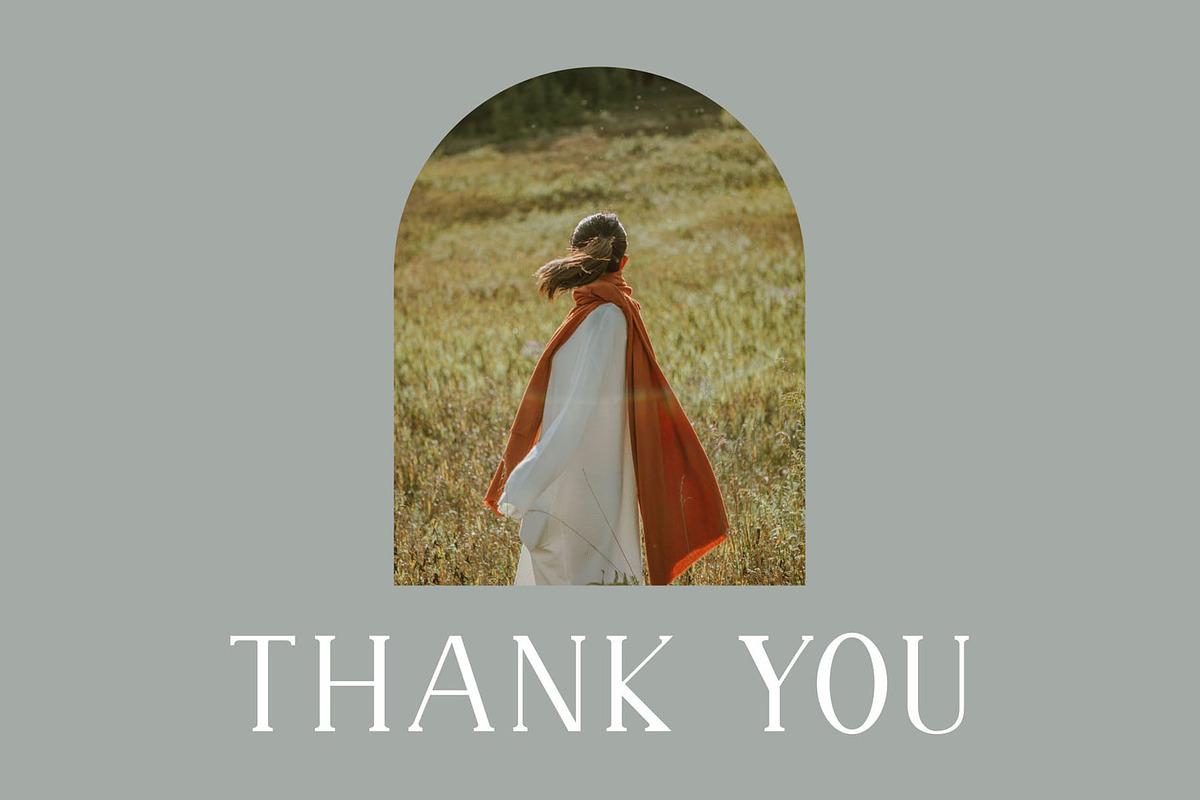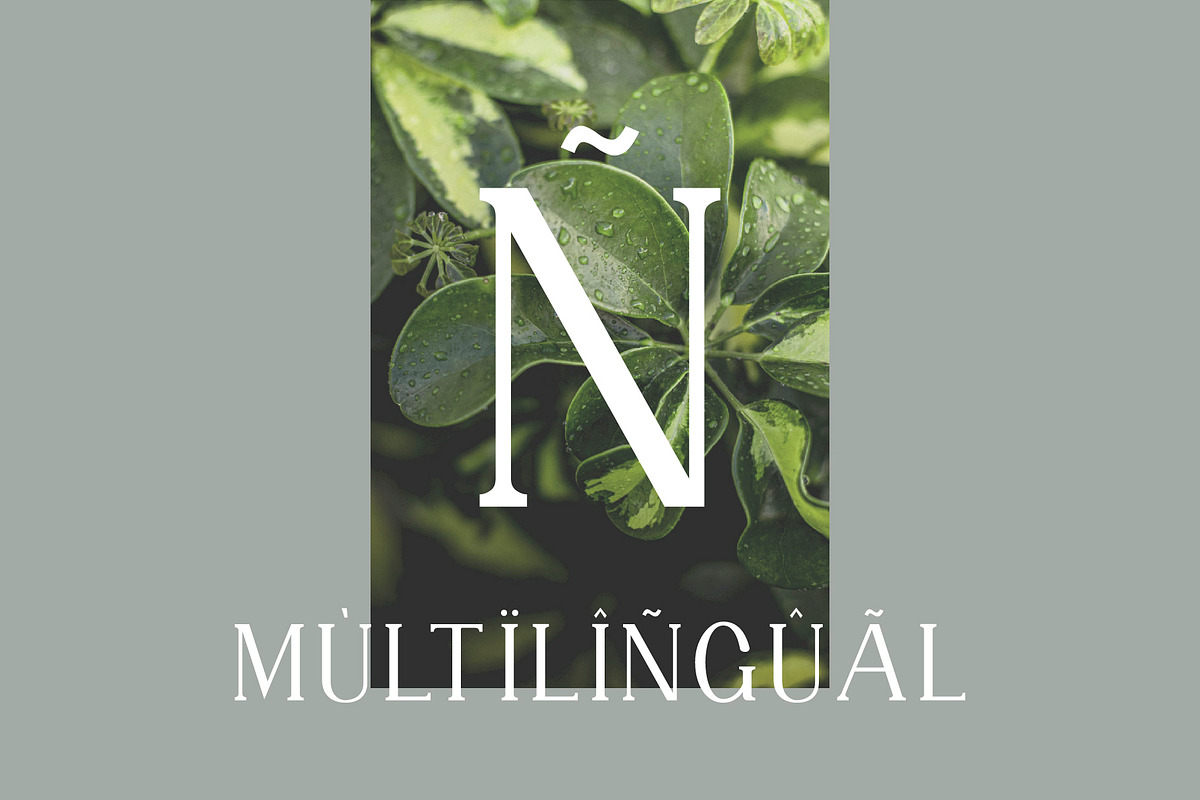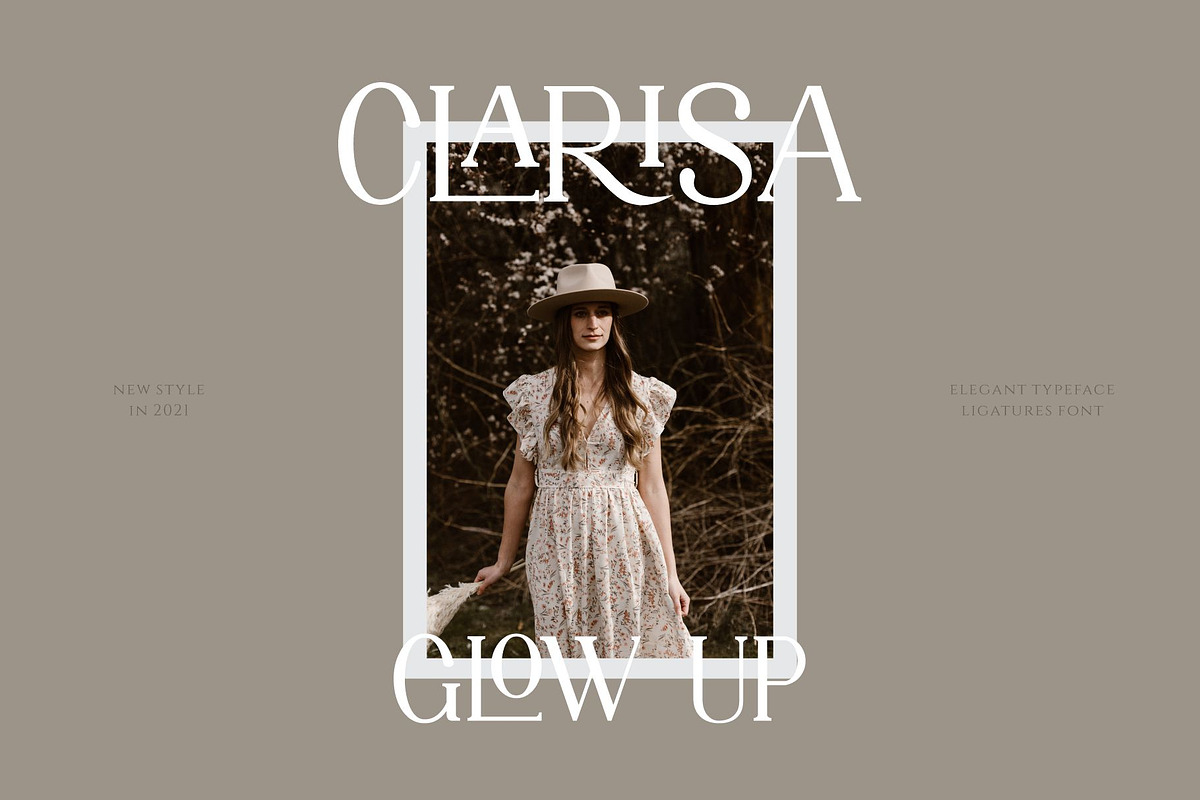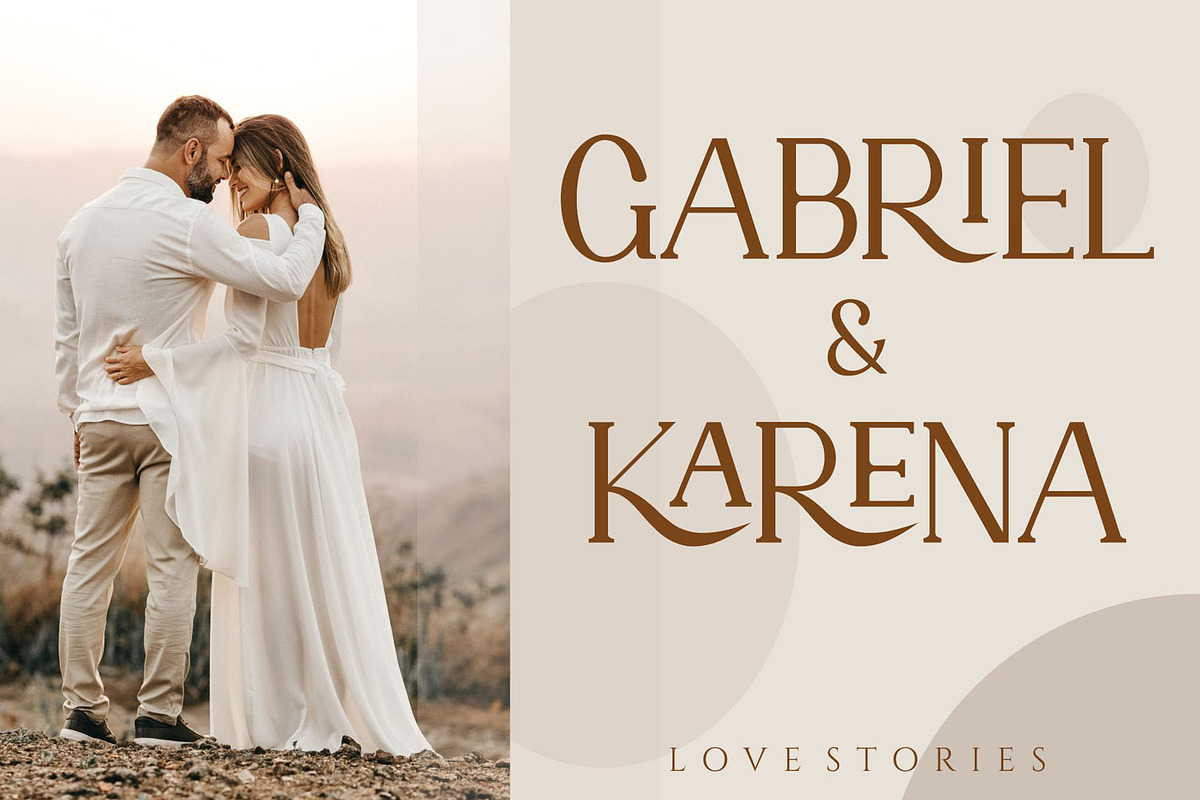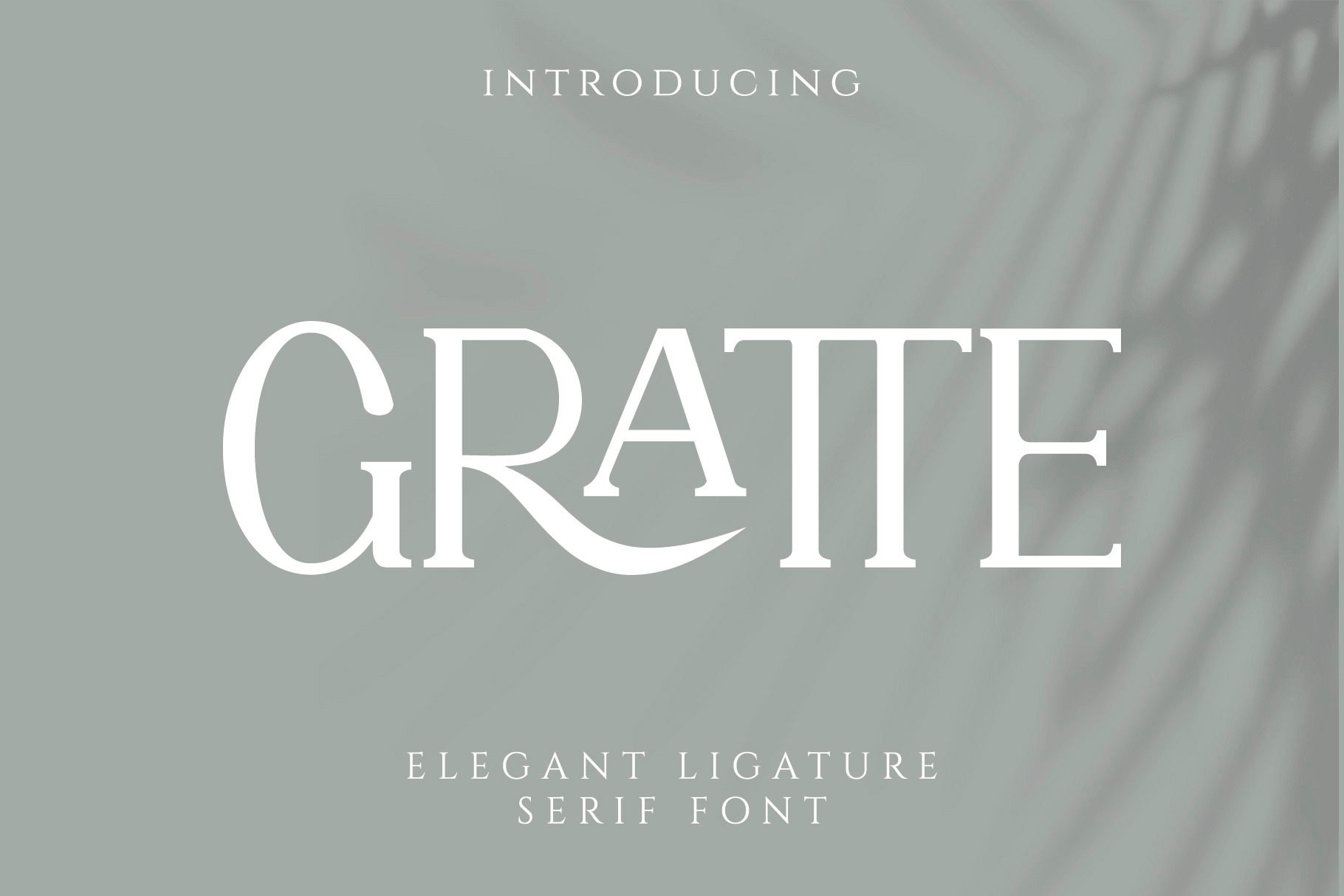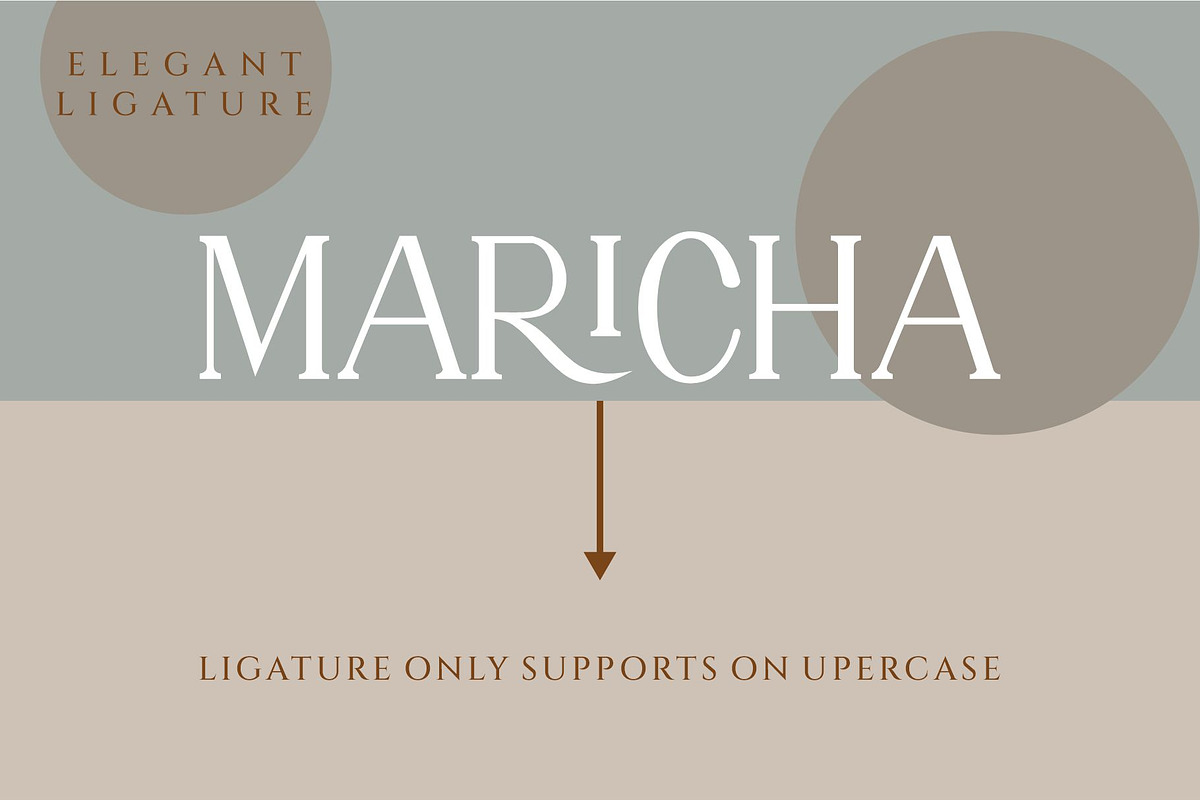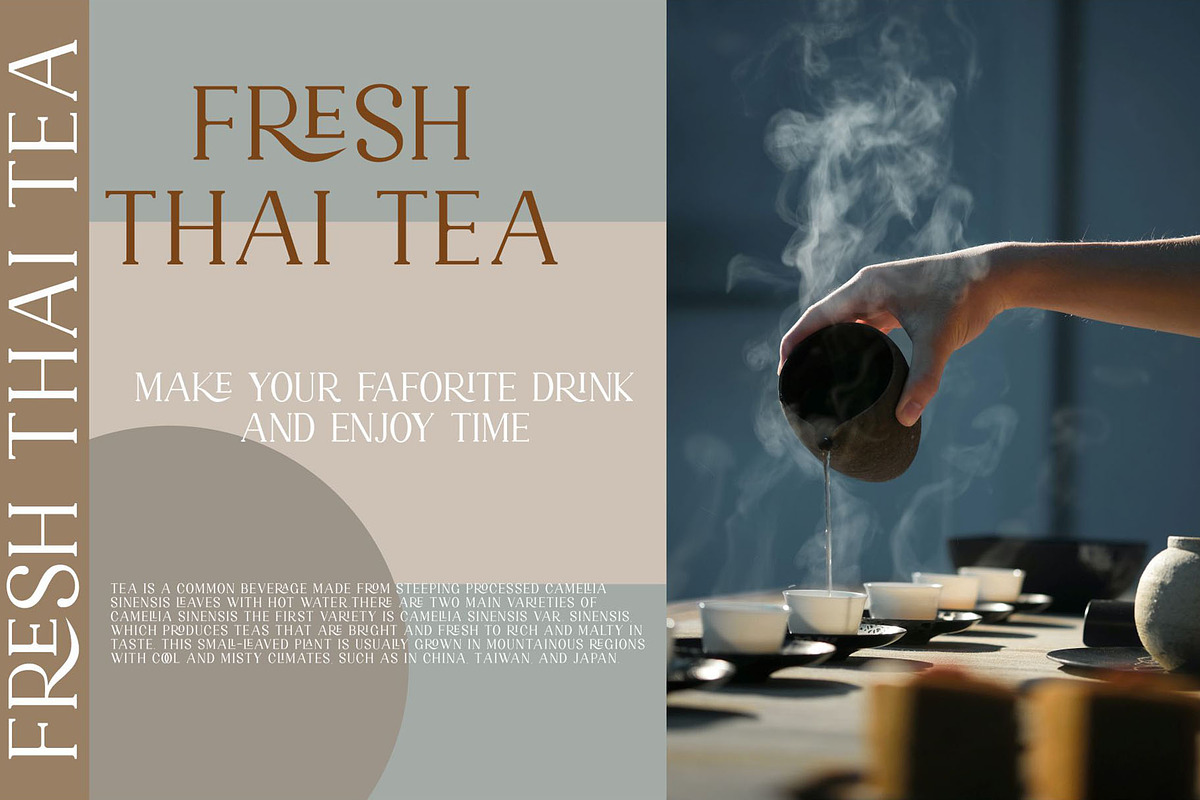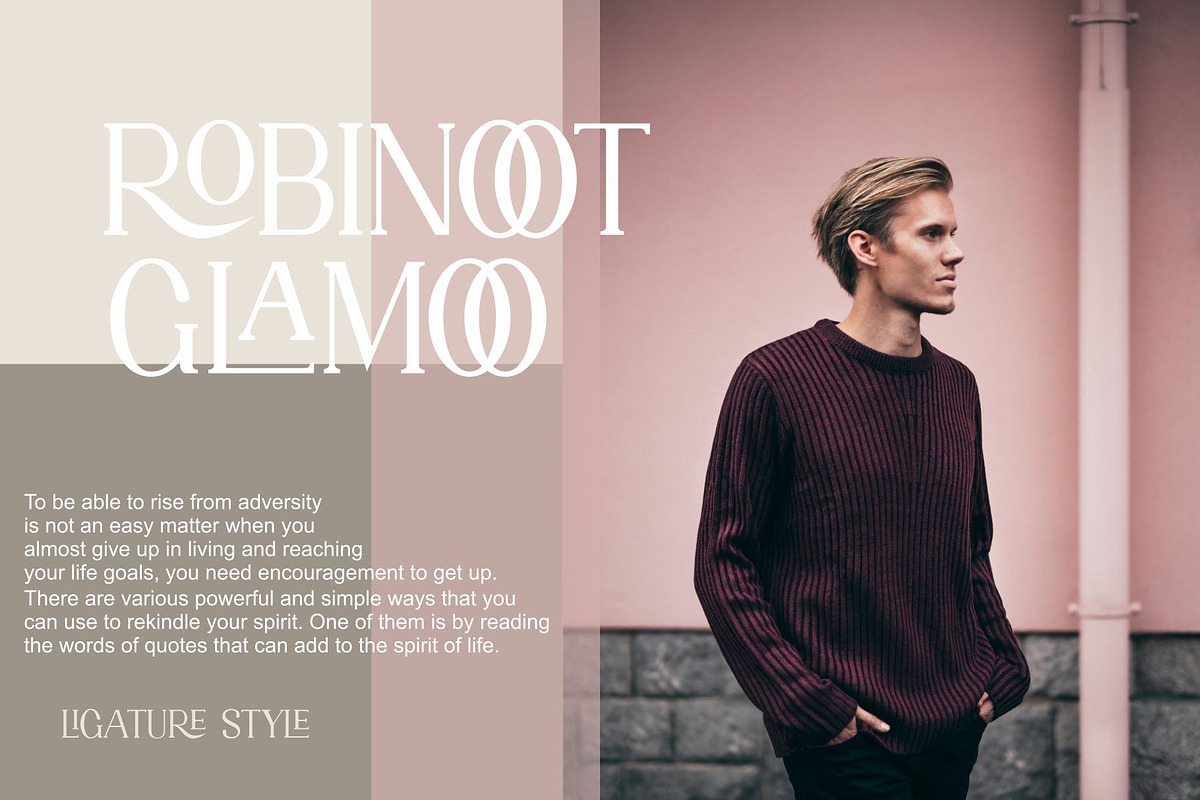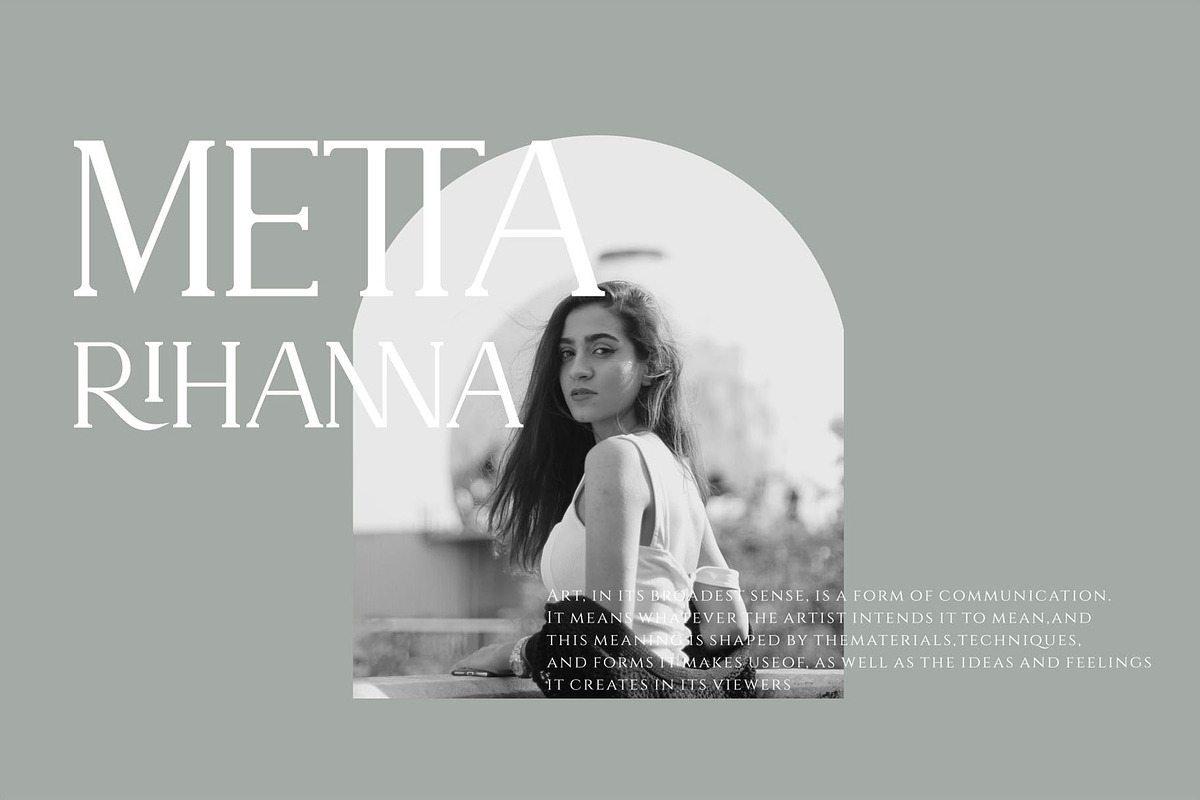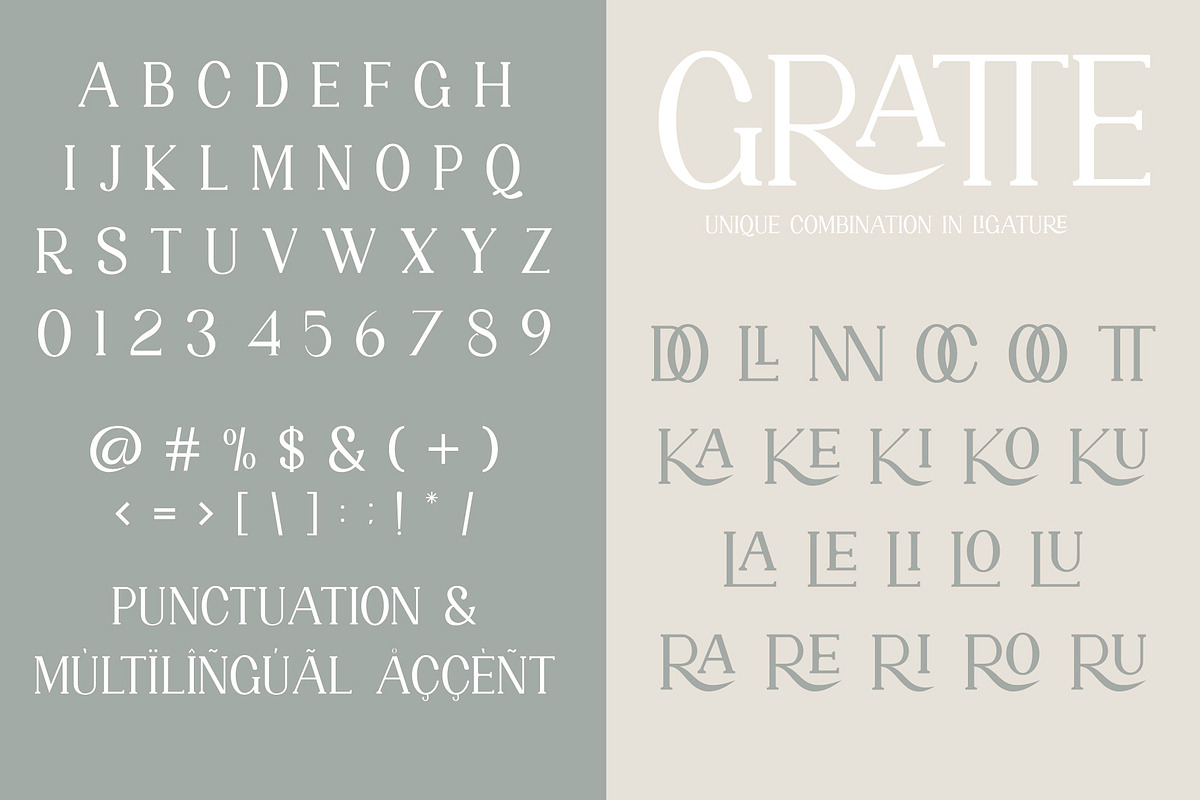
GRATTE Ligature Serif Font
Hello, introducing the new GRATTE - Serif Ligature Font!!! GRATTE is a elegant and classy serif typeface – This font is both modern and nostalgic and works great for logos, magazine, social media etc. Already matched up and ready to be used together for your next design! For those of you who are needing a touch of elegant, stylish, classy, chic and modernity for your designs, this font was created for you!
GRATTE was built with OpenType features and includes 21 ligatures, numbers, punctuation, and it also supports other languages.